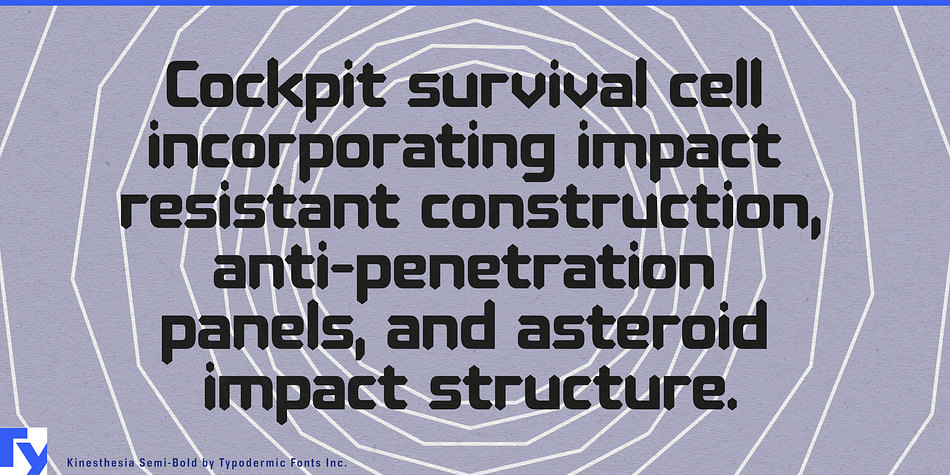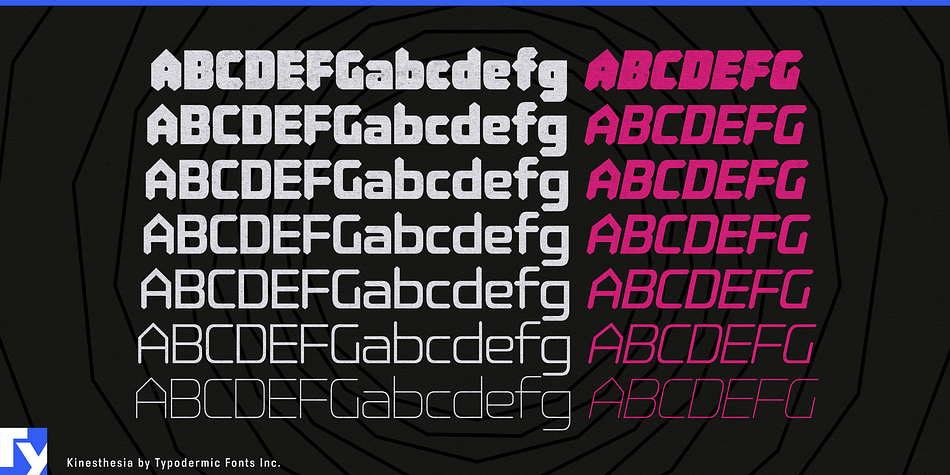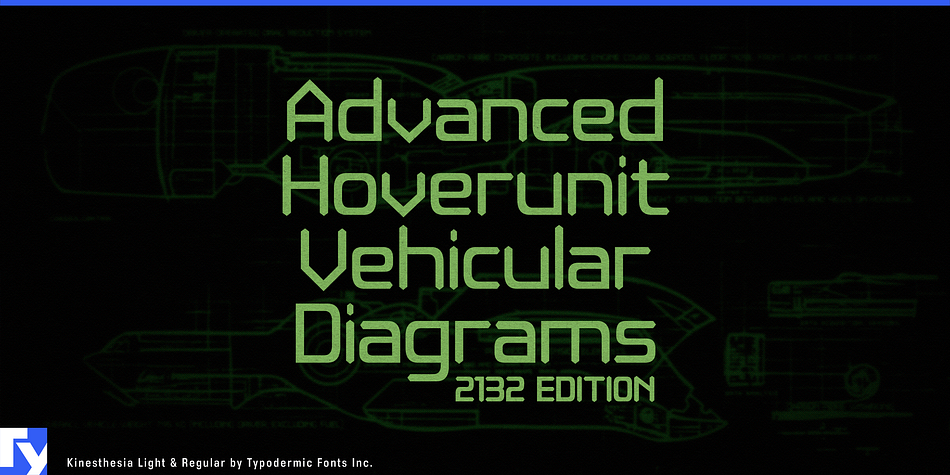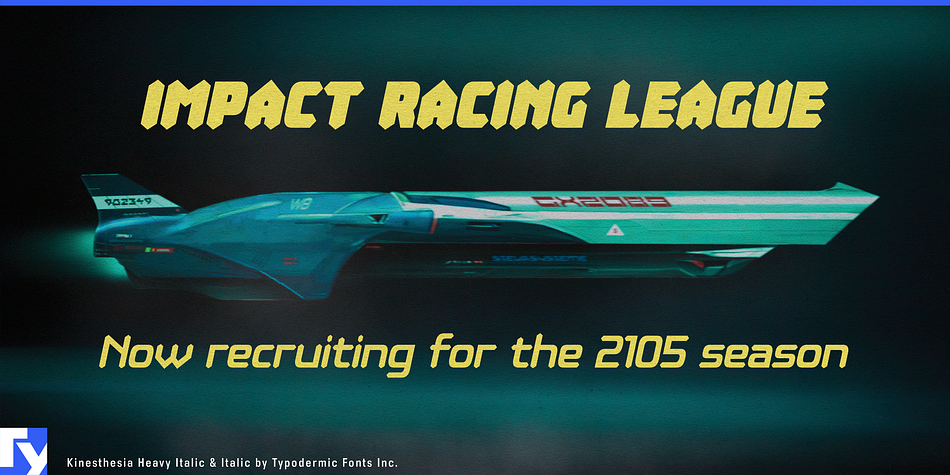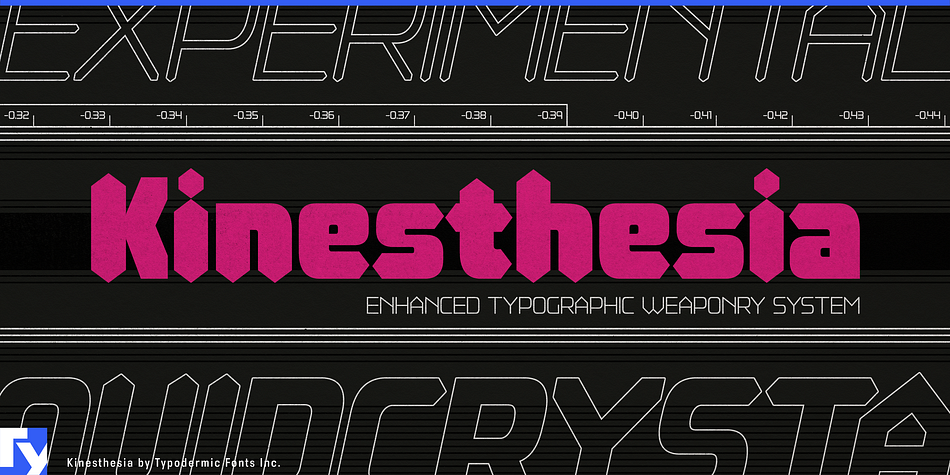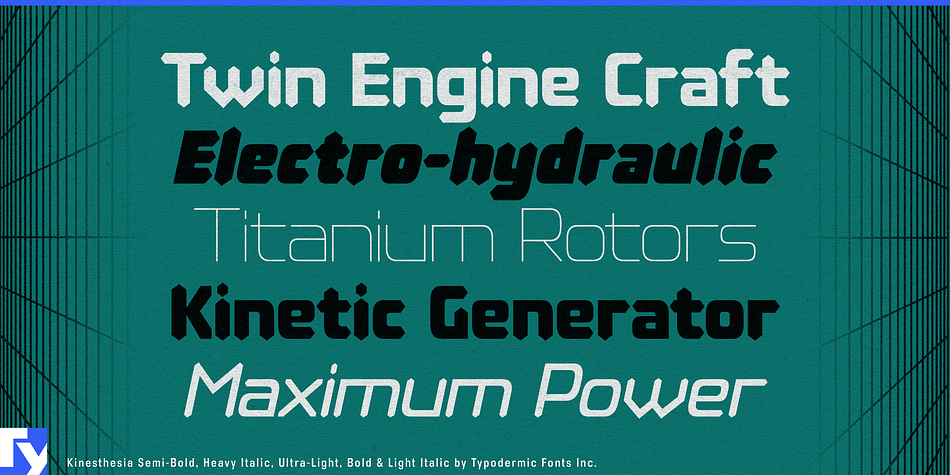
Kinesthesia
Designed by Ray Larabie, Kinesthesia is a display sans font family. This typeface has sixteen styles and was published by Typodermic Fonts Inc.
Introducing Kinesthesia, the hypermodern typeface that channels the sleek, futuristic aesthetic of liquid crystal displays. With its sharp diamond points and hi-tech letterforms, Kinesthesia is the perfect choice for anyone looking to communicate their message with a cool, technical tone. Whether you’re designing a cutting-edge website, a high-tech advertisement, or a bold logo, Kinesthesia will give your work an unmistakable edge.
But what sets Kinesthesia apart from other typefaces on the market? For starters, it offers a wide range of monetary symbols, as well as numeric ordinals, primes, and OpenType fractions. So whether you’re writing a report for work or creating a digital design for a client, you can be confident that Kinesthesia has all the symbols and characters you need to convey your message with precision.
And of course, let’s not forget Kinesthesia’s angular design. With its sharp, diamond-shaped points, this typeface is the perfect choice for anyone looking to add a contemporary edge to their work. Available in Ultra-Light, Extra-Light, Light, Regular, Semi-Bold, Bold, and Heavy with obliques, Kinesthesia offers a wide range of weights and styles to suit any design need.
So if you’re ready to take your design game to the next level, look no further than Kinesthesia. With its technical aesthetic and wide range of features, this typeface is the perfect choice for anyone looking to make a bold, unforgettable statement.